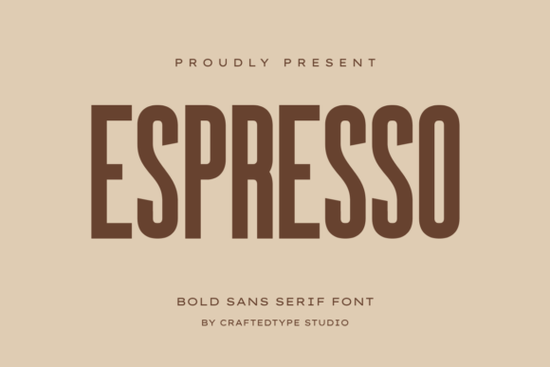
Espresso Font is a standout choice for anyone looking to add a touch of sophistication to their design projects. This bold sans serif font offers a clean and modern look that works well across a variety of applications. Whether you're designing for print-on-demand products or creating branding materials, Espresso Font delivers a strong visual impact without sacrificing readability.
The font's tall and balanced letterforms make it easy to read at different sizes, which is especially useful when working on t-shirts, posters, or packaging. Its elegant spacing ensures that each character sits perfectly in place, giving your designs a polished finish. This makes it an excellent option for both professional and creative projects, from minimalist logos to cinematic titles.
What Makes Espresso Font Unique?
One of the key features of Espresso Font is its ability to maintain clarity while still standing out. Unlike some fonts that may feel too busy or overwhelming, this one strikes a perfect balance between simplicity and style. Its bold weight gives it a strong presence, while the subtle curves add a sense of elegance.
For designers who want to keep their work looking fresh and modern, Espresso Font provides a reliable foundation. It’s particularly well-suited for projects that require a clean, professional look, such as business cards, website headers, or social media graphics. Its versatility means you can use it in multiple ways without it feeling repetitive.
Best Uses for Espresso Font
- Print On Demand: Ideal for t-shirts, mugs, and tote bags where a bold, readable font is essential.
- Branding: Perfect for logos and business names that need to make a strong first impression.
- Packaging: Adds a sleek, modern touch to product boxes and labels.
- Film Titles: Offers a cinematic feel that complements visual storytelling.
Whether you're a small business owner, a craft maker, or a designer looking for high-quality typography, Espresso Font has something to offer. It’s designed with practicality in mind, ensuring that it meets the needs of both professionals and hobbyists.
When choosing a font, it's important to consider how it will look in different contexts. Espresso Font is a reliable choice that can enhance your designs without requiring extensive adjustments. Its clean lines and strong structure make it a go-to option for many creatives.
If you're new to using bold sans serif fonts, starting with Espresso Font can help you understand how these types of fonts can elevate your work. As you become more familiar with its characteristics, you can explore other similar fonts to expand your design toolkit.
Remember, the right font can make a big difference in how your work is perceived. Espresso Font is a solid option that combines style with functionality, making it a valuable addition to any designer’s collection.
As you continue to explore the world of typography, keep in mind that fonts like Espresso Font can play a key role in shaping the overall aesthetic of your work. By selecting the right typeface, you can create designs that are not only visually appealing but also effective in communicating your message.